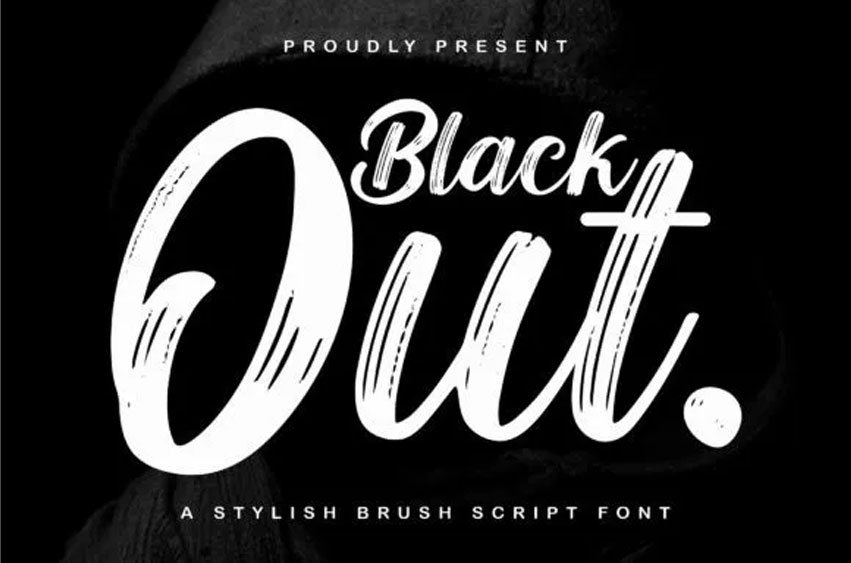
Blackout Brush Font is a cursive and brushed handwritten font. This gentle font will look gorgeous on a variety of design ideas.
It will add a joyful and romantic touch to each of your projects!